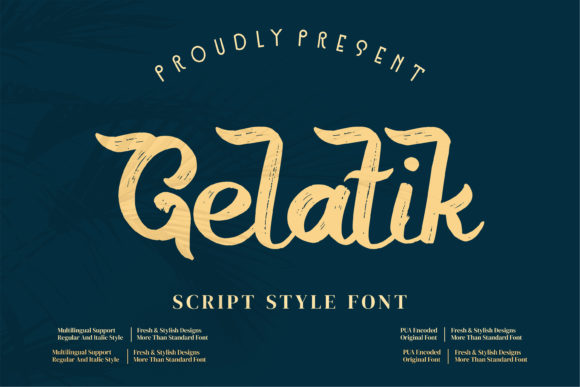
Dive into the world of captivating artistry with Gelatik Font, the ultimate script font designed to make your words dance on the page. Created by the talented mahstudios, this modern handwritten font is a symphony of elegance, perfect for adding a touch of luxury to any project.
Immerse yourself in the beauty of Gelatik Font, a mesmerizing creation that will elevate your designs to new heights. With its graceful curves and flowing lines, this font is perfect for adding a personal touch to logos, branding projects, homeware designs, product packaging, and more. Unleash your creativity and explore the endless possibilities Gelatik Font offers.
Picture your words adorning mugs, quotes, and posters, each letter a stroke of genius. Create shopping bags and t-shirts that speak volumes, capturing the attention of all who see them. Design book covers and name cards that exude sophistication, leaving a lasting impression wherever they go. Let Gelatik Font transform your invitations and greeting cards into works of art, making every occasion truly special.
Add a touch of elegance to product labels and photography, making your products stand out from the crowd. Create stunning watermarks that add a sense of exclusivity to your work. Whether you're planning a special event or simply seeking to add a luxurious touch to your projects, Gelatik Font is the perfect choice.
Experience the magic of Gelatik Font today and elevate your designs to the next level. Its versatility knows no bounds, making it the perfect font for any project that demands a touch of sophistication and charm. Let your creativity soar as you witness the beauty of Gelatik Font unfold before your very eyes.